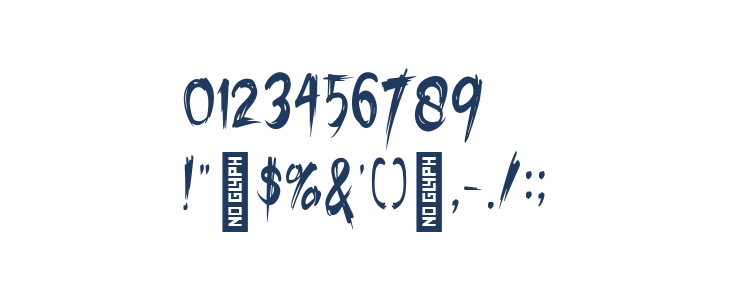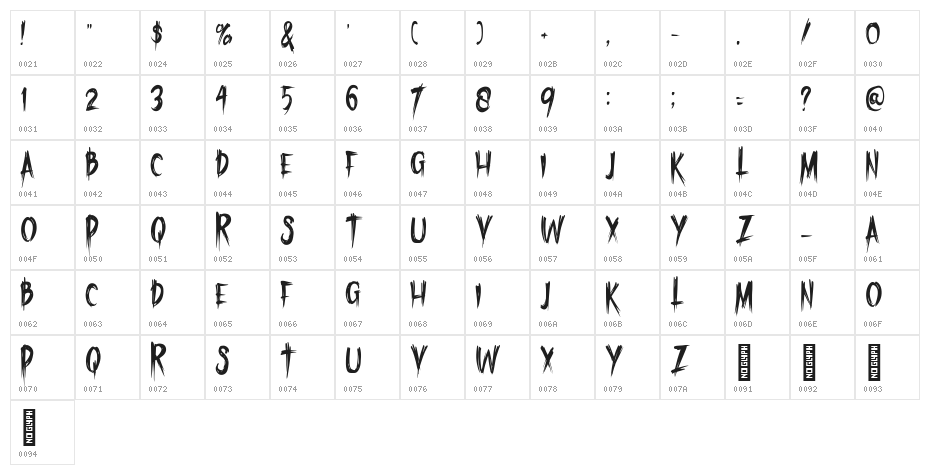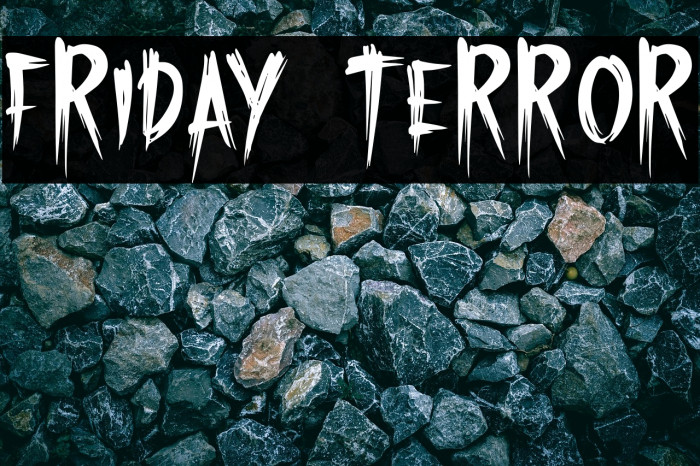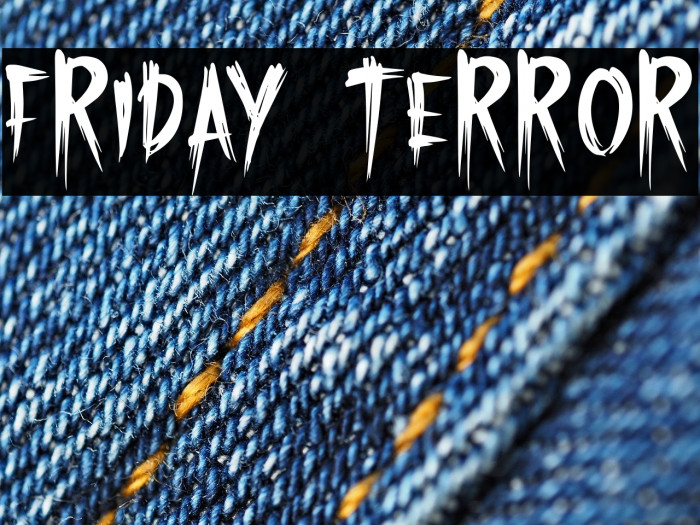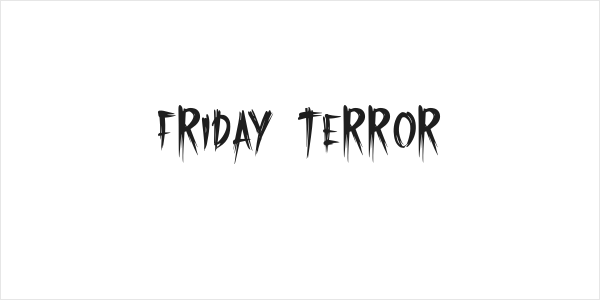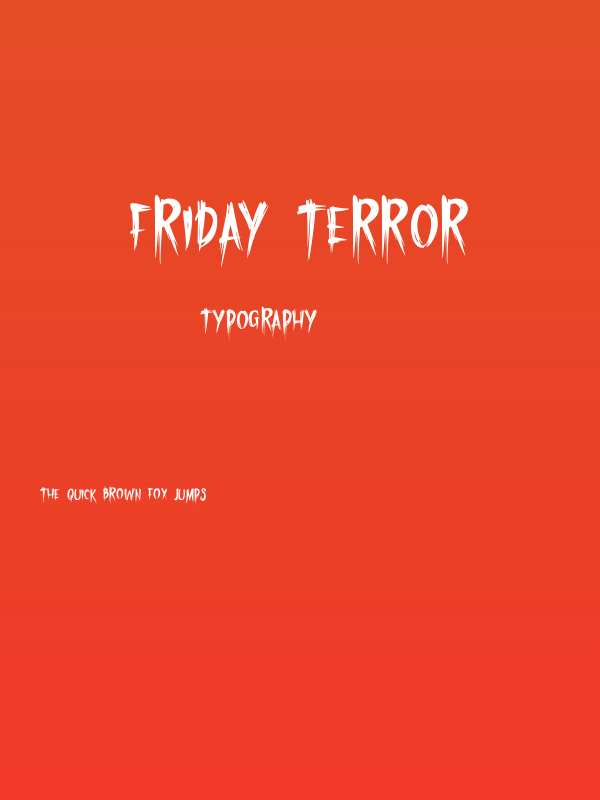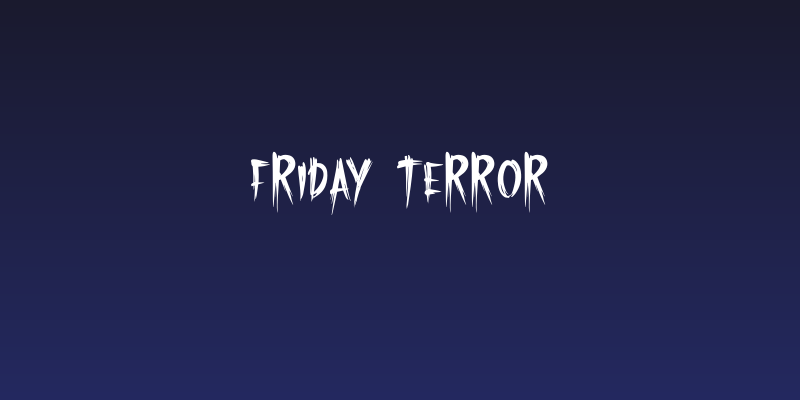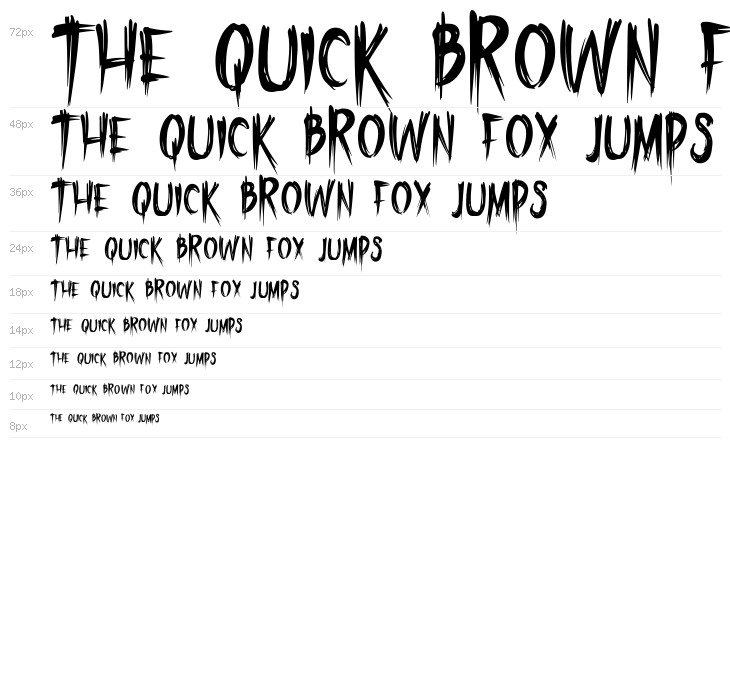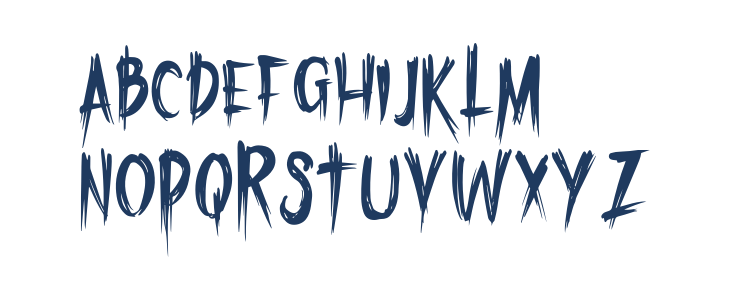
Friday Terror Font
Friday Terror Description
This font features a dramatic and edgy style, characterized by sharp, jagged edges and a hand-drawn appearance. The letters are bold and dynamic, with an irregular and chaotic form that evokes a sense of horror or suspense. The uppercase and lowercase letters maintain a consistent style, with exaggerated strokes and pointed ends that create a visually striking effect. The numbers and special characters follow the same aesthetic, adding to the overall cohesive look. This font is perfect for projects that require a bold and attention-grabbing typeface with a touch of the macabre.
| Use Case | Headlines, Posters, Logos |
| Proposed Projects | Ideal for horror movie posters, Halloween event flyers, spooky-themed merchandise, and edgy graphic design projects. |